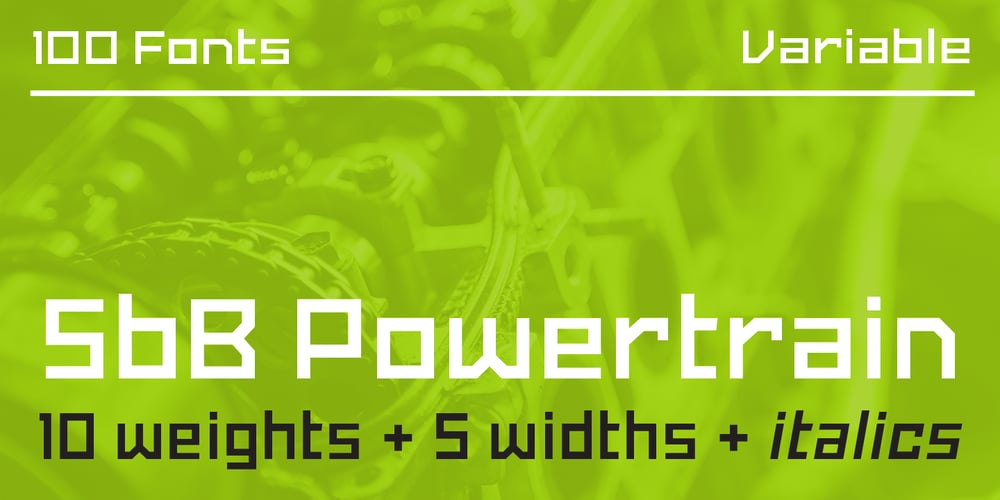
SbB Powertrain Font Family was designed by Bob Wertz and published by Sketchbook B. SbB Powertrain contains 101 styles and family package options. Bold and angular. SbB Powertrain’s glyphs are constructed from simple shapes. All straight edges and lots of right angles, but surprisingly friendly. A wide range of weights and widths make Powertrain perfect for branding projects, posters, logos or any project where you need maximum flexibility. Ten weights and five widths Small caps Stylistic alternatives Opentype figure styles Complete version includes a variable typeface with three axes: weight, width and slant.